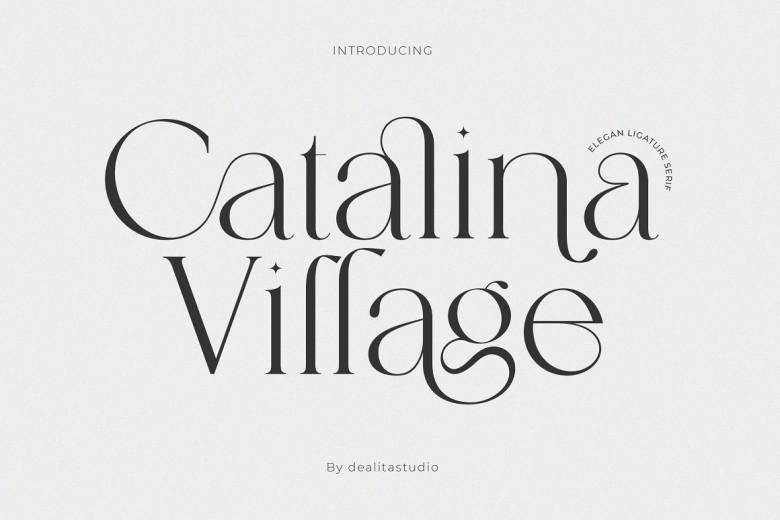
Catalina Vintage Font
Catalina Village – a chic & elegant display modern serif font with beautiful contrast. Specially designed for fashion-themed projects, perfectly suitable for creating elegant, chic, lifestyle designs such as logos, titles, and magazines, and more.
Catalina Vintage Serif Font